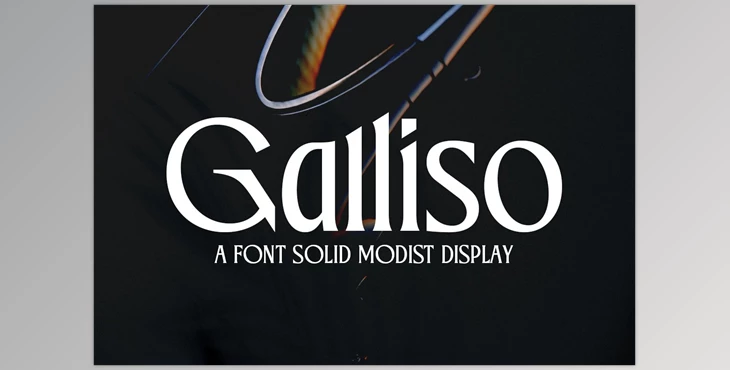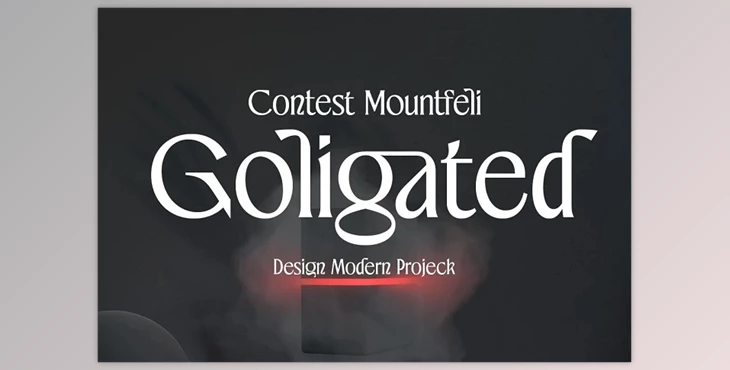
The Galliso Font is a serif font characterized by its timeless yet modern appearance, featuring subtle curves and elegant bindings. Available in regular and italic variants across four styles, it offers a sophisticated typographic style with support for ligatures and multiple languages.
Designed for use in logos and formal designs, Galliso conveys an imaginative, creative, and evocative message suitable for advertising, branding, packaging, headlines, websites, magazines, and beyond.